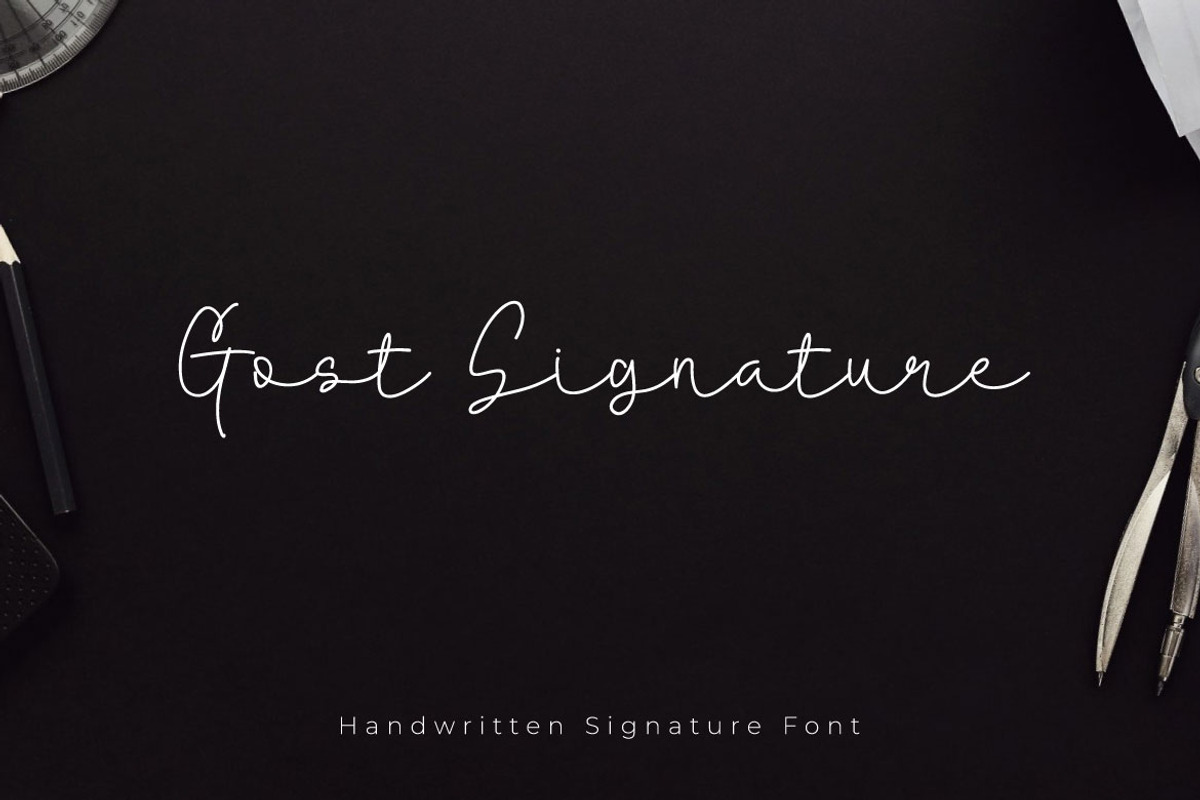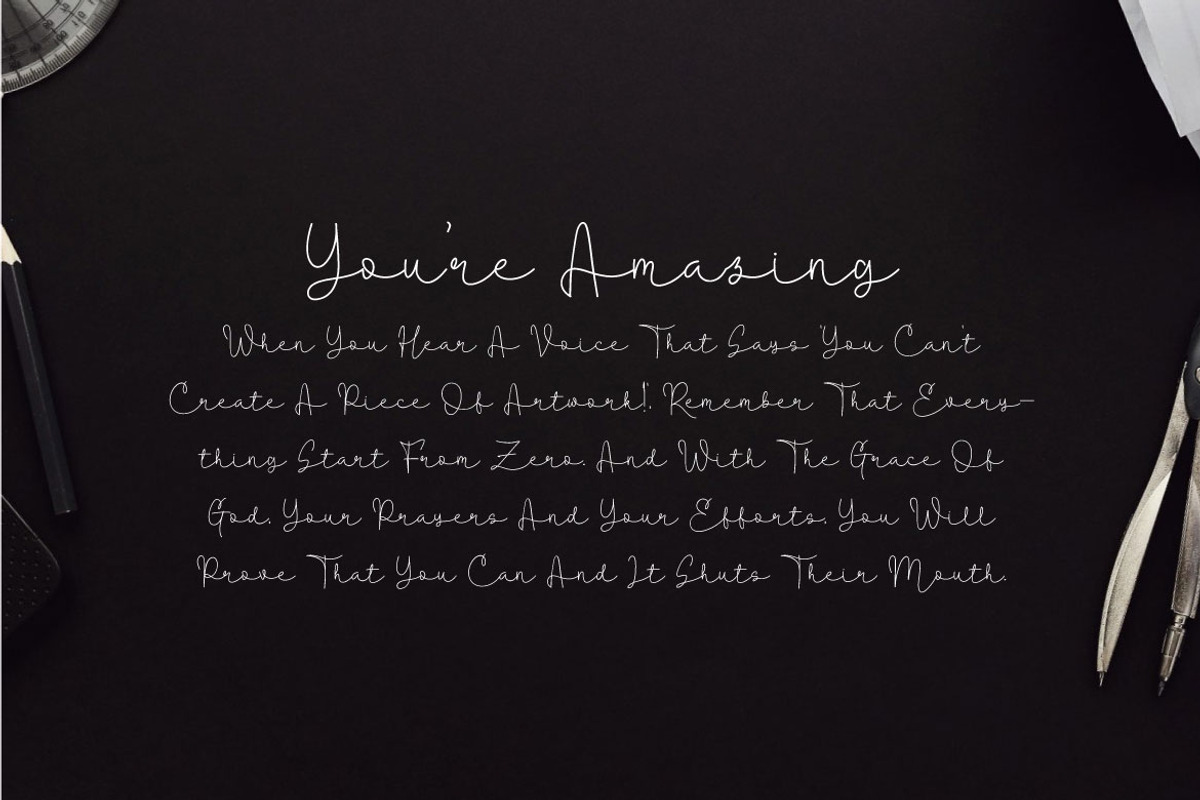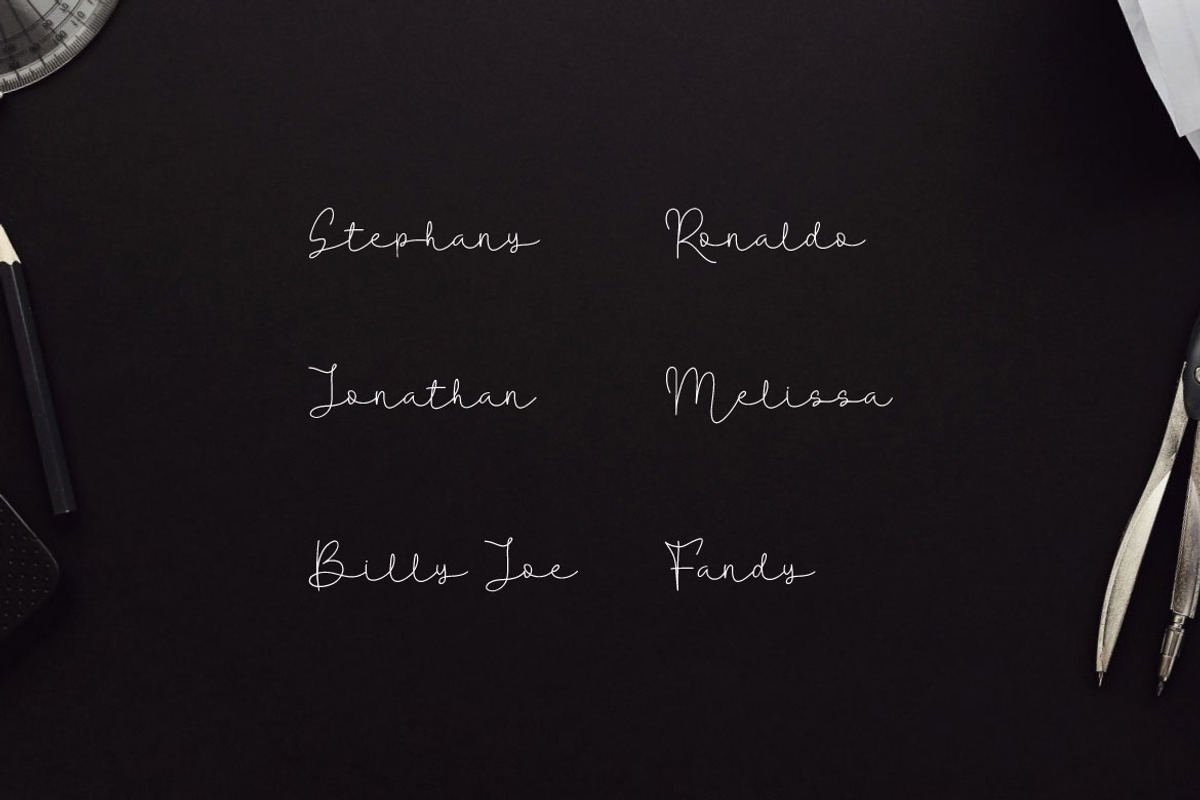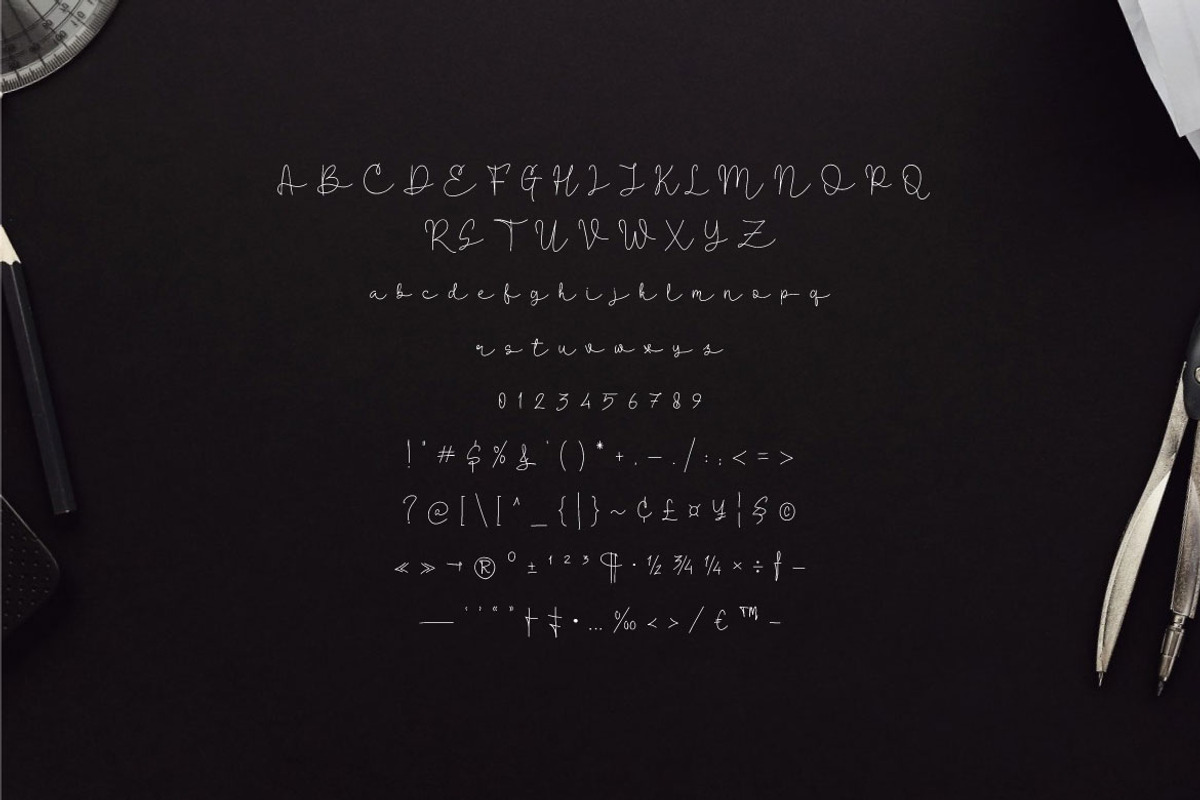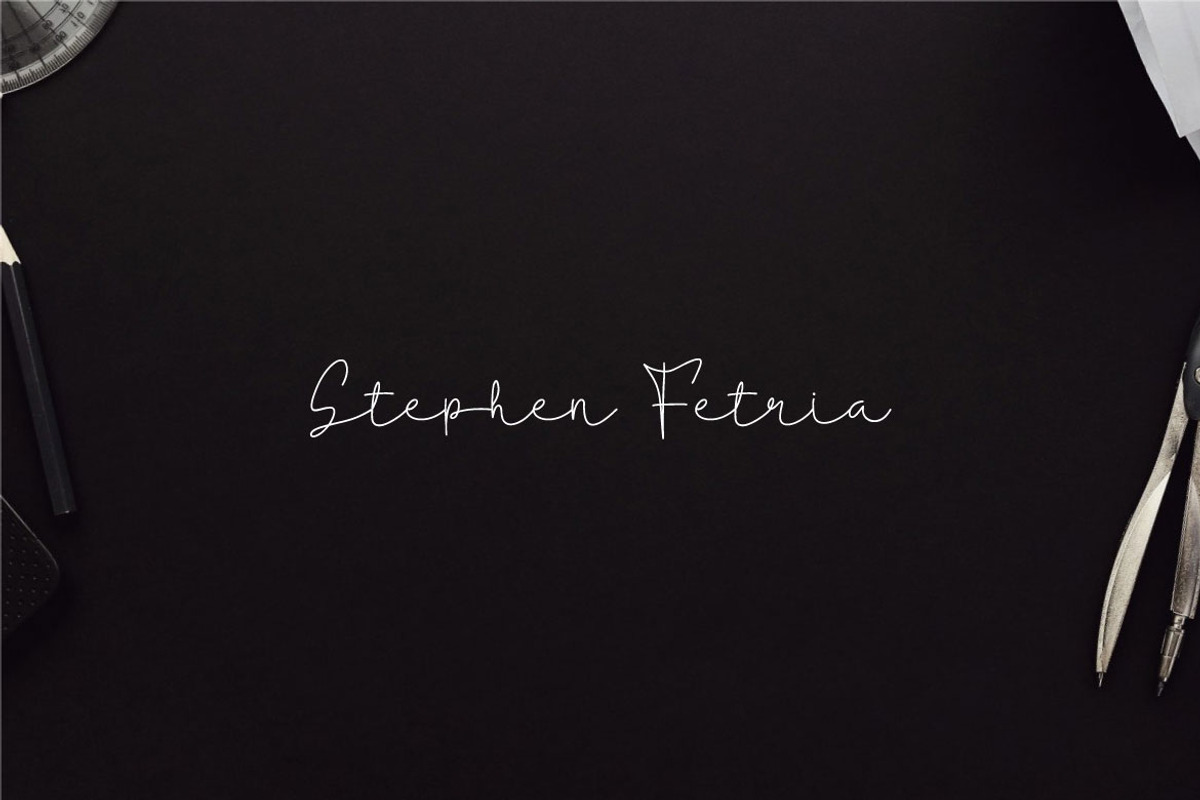
Gost Signature - Handwritten Font
Dive into the world of sophistication and elegance with Gost Signature a premium thin signature font. Designed with precision and a keen eye for detail, Gost Signature captures the essence of personal touch and refined taste, making it a perfect addition to your design toolkit.
In a digital age where branding and personalization are key, Gost Signature stands out by offering an effortlessly stylish font that resonates with luxury and exclusivity. Its thin, flowing lines are reminiscent of high-end signature logos, providing a level of sophistication that elevates any design project.